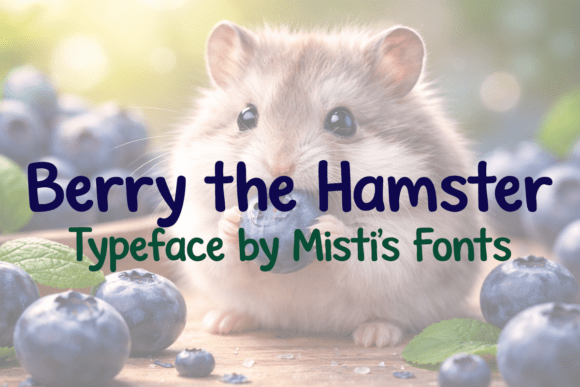
The Cuteness Overload: Discovering Berry the Hamster Font
I’ll never forget the time I was working on a project for a children’s brand, and I just couldn’t find the right font to capture the playful, friendly vibe I was going for. The client wanted something that would appeal to kids and parents alike, but everything I tried seemed either too boring or too over-the-top. That’s when I stumbled upon Berry the Hamster font, and let me tell you, it was love at first sight! 💕
This delightful handwritten font has a way of making your designs feel approachable, warm, and downright cute. In this article, I’ll share my experience with Berry the Hamster, including what I love about it, some minor quirks to be aware of, and practical tips on how to use it in your design projects.
What I Love About Berry the Hamster Font ✨
- ✅ Simplicity and Legibility: Berry the Hamster font strikes the perfect balance between being easy to read and having a unique personality.
- ✅ Cuteness Overload: This font is perfect for projects that need a friendly, inviting touch.
- ✅ Handwritten Charm: The font’s handwritten nature adds a personal touch to your designs.
- ✅ Versatility: Berry the Hamster font can be used for a wide range of projects, from branding and packaging to social media graphics and more.
Some Minor Quirks to Consider 🤔
- ⚠️ Limited Formality: Berry the Hamster font is best suited for informal projects; it may not be the best choice for more formal or corporate designs.
- ⚠️ Glyph Limitations: While the font has a range of glyphs and alternates, it may not have every special character or symbol you need.
The Story Behind Berry the Hamster Font
Berry the Hamster font was created by a talented designer who wanted to capture the essence of their beloved pet hamster, Berry. The designer’s goal was to create a font that would bring a sense of joy and playfulness to design projects. And, judging by the font’s popularity, I’d say they succeeded!
Q: Is Berry the Hamster font suitable for formal designs?
A: While Berry the Hamster font is incredibly charming, it’s best suited for informal projects. For more formal designs, you might want to consider a serif or sans-serif font.
Q: Does Berry the Hamster font have any special features?
A: Yes, Berry the Hamster font comes with a range of glyphs, stylistic alternates, and OpenType features that can enhance your designs.